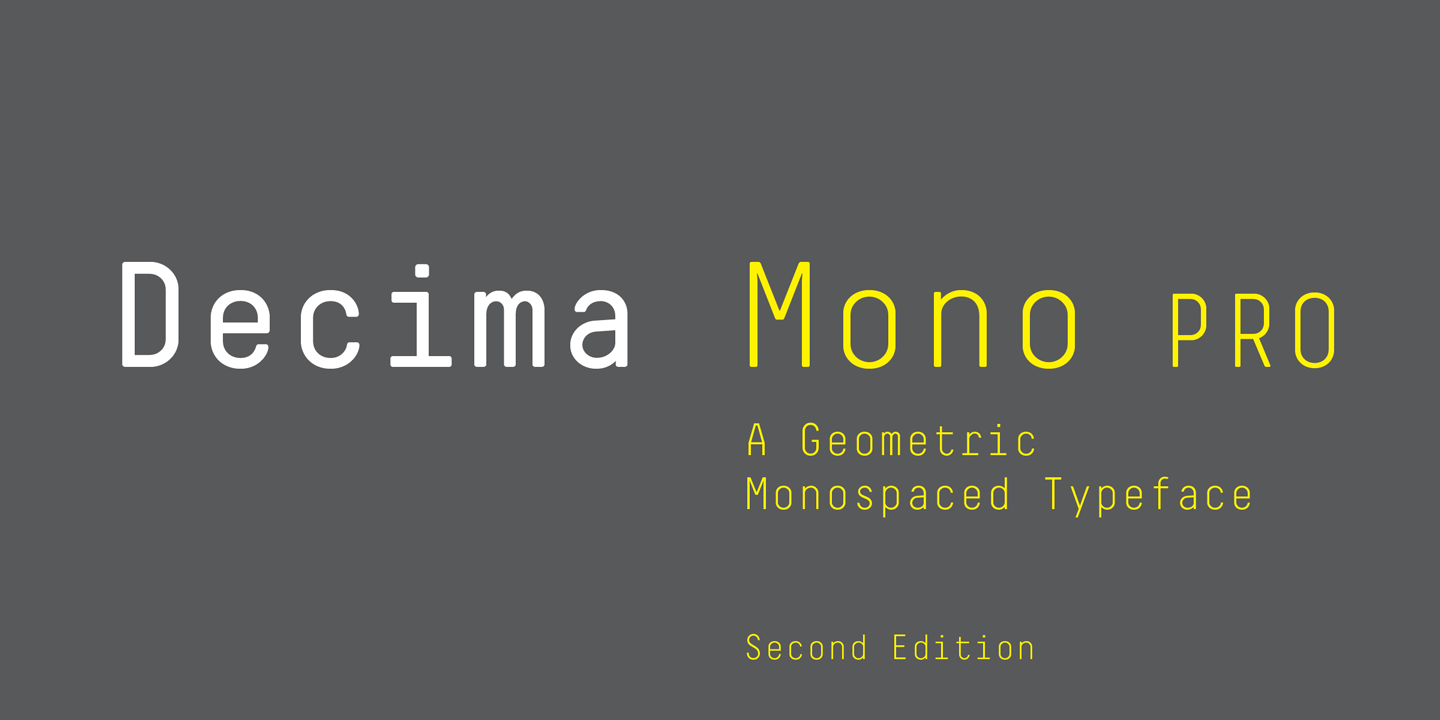
The Decima Mono Pro Font is a sleek, modern monospaced typeface, meticulously designed for clarity, precision, and a sophisticated technical aesthetic. Imagine this font gracing lines of code in a developer's IDE, providing crisp and organized text for data tables, or bringing a clean, minimalist feel to technical documentation. Its fixed-width characters and exceptional legibility make it an excellent choice for programming environments, financial reports, command-line interfaces, and any project where visual alignment and unambiguous character distinction are paramount. Decima Mono Pro Font is also wonderfully suited for creating distinctive branding for tech companies, modern editorial layouts, and any design that benefits from a precise, structured, and contemporary look.
What makes Decima Mono Pro Font so exciting is its perfect blend of traditional monospaced utility with a refined, contemporary design. It maintains the essential clarity required for coding and data, while offering a more aesthetically pleasing and less utilitarian feel than many other monospaced fonts. The careful balance in its letterforms ensures that each character stands out clearly, preventing confusion between similar-looking glyphs – a critical feature for developers and data analysts. This font doesn't just display text; it organizes it with intelligent precision and an air of modern efficiency, making every line feel purposeful and clear. Its robust design ensures your content will maintain a professional and highly readable appearance across various technical and design applications.
The Decima Mono Pro Font family is typically extensive, providing designers and developers with a comprehensive set of tools for various applications. You'll often find a wide spectrum of weights, ranging from a delicate Thin or Hairline, through a versatile Light, Regular, and Medium, up to a robust Bold or Black weight. Crucially for a "Pro" font, it will almost certainly include corresponding Italic or Oblique versions for each weight, expanding its expressive range for emphasis or stylistic variation within code comments or text. Furthermore, expect features like extended language support, stylistic alternates for commonly confused characters (like 'l' and '1'), and true monospace metrics across all weights, ensuring consistent alignment. These numerous variations ensure that Decima Mono Pro Font can be effectively employed for a vast array of technical and design hierarchies, all while maintaining a consistent and highly adaptable visual identity. For those seeking the precise Decima Mono Pro Font Free Download, its comprehensive family offers unparalleled possibilities for structured and modern design.